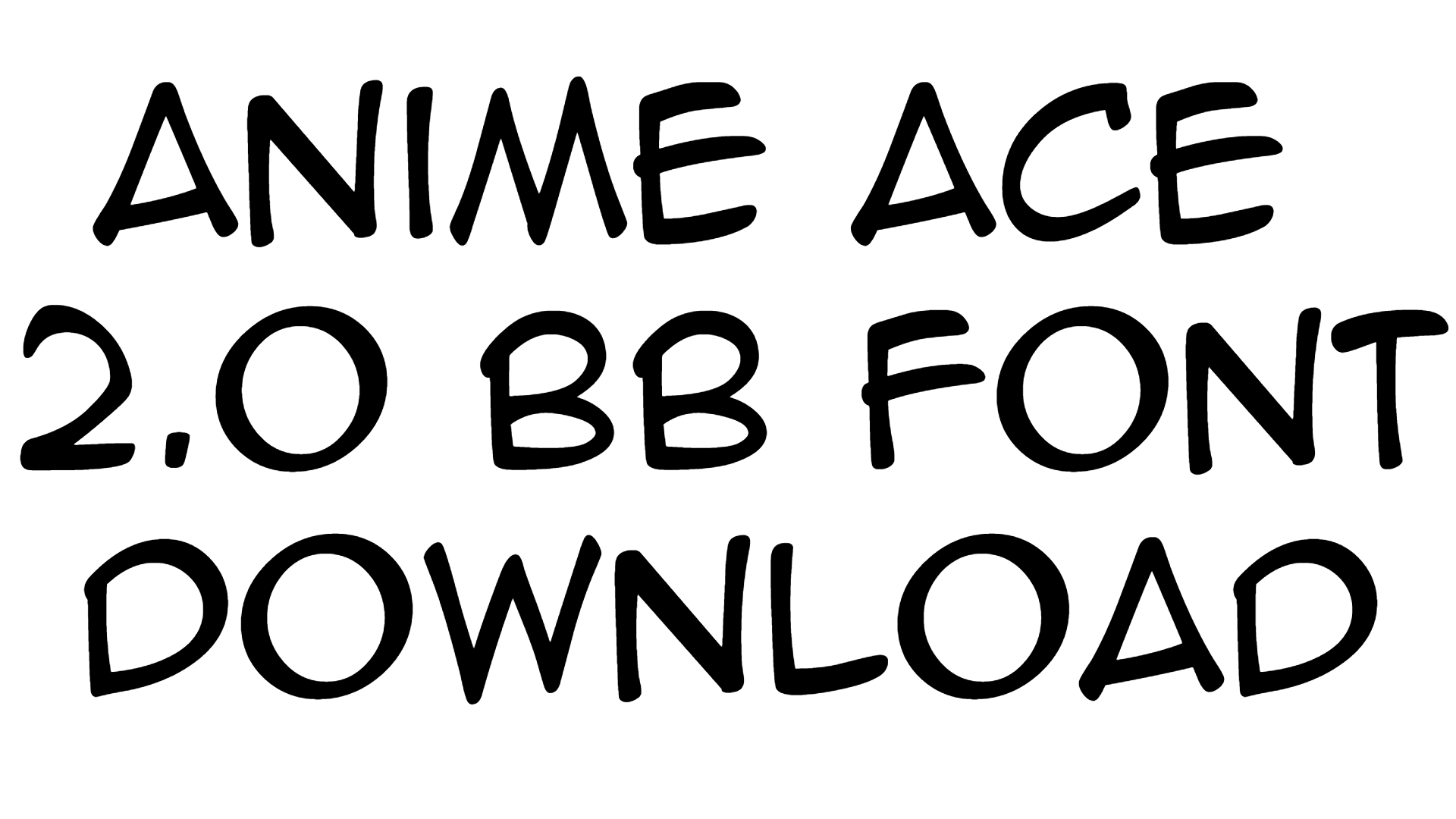
Anime Ace 2.0 BB Font
Anime Ace 2.0 BB is a comic font designed by Nate Piekos and published by Nate Piekos. Blambot.com. Its bouncy, rounded letters feel playful, like lettering from a cartoon or a comic book. You get three styles in one free ZIP, and the preview above lets you test each one before you download.
Anime Ace 2.0 BB Font Details
- Designer: Nate Piekos
- Publisher: Nate Piekos. Blambot.com
- Category: Comic font
- Font styles: 3 (Regular, Bold and Italic)
- Glyphs: 162 in the Regular style
- Languages: English, Spanish and Italian
What You Can Type With Anime Ace 2.0 BB
With complete upper and lowercase letters and all ten digits, Anime Ace 2.0 BB is ready for real wording, not just a single headline. Common punctuation such as &, !, ? and @ is included as well. It also has the accented letters you need for Spanish and Italian.
Where Anime Ace 2.0 BB Works Best
Think of Anime Ace 2.0 BB for comic strips, speech bubbles and playful headings. Cartoon fonts are great for short, fun lines. If you place it over a busy photo, add a thick outline or a drop shadow so it stays readable. Because the family has more than one style, you can mix them in a single design for headings, subheadings and highlights.
Does Anime Ace 2.0 BB support accented letters?
Yes. Anime Ace 2.0 BB includes the accented letters needed for Spanish and Italian, so it works for more than just English.